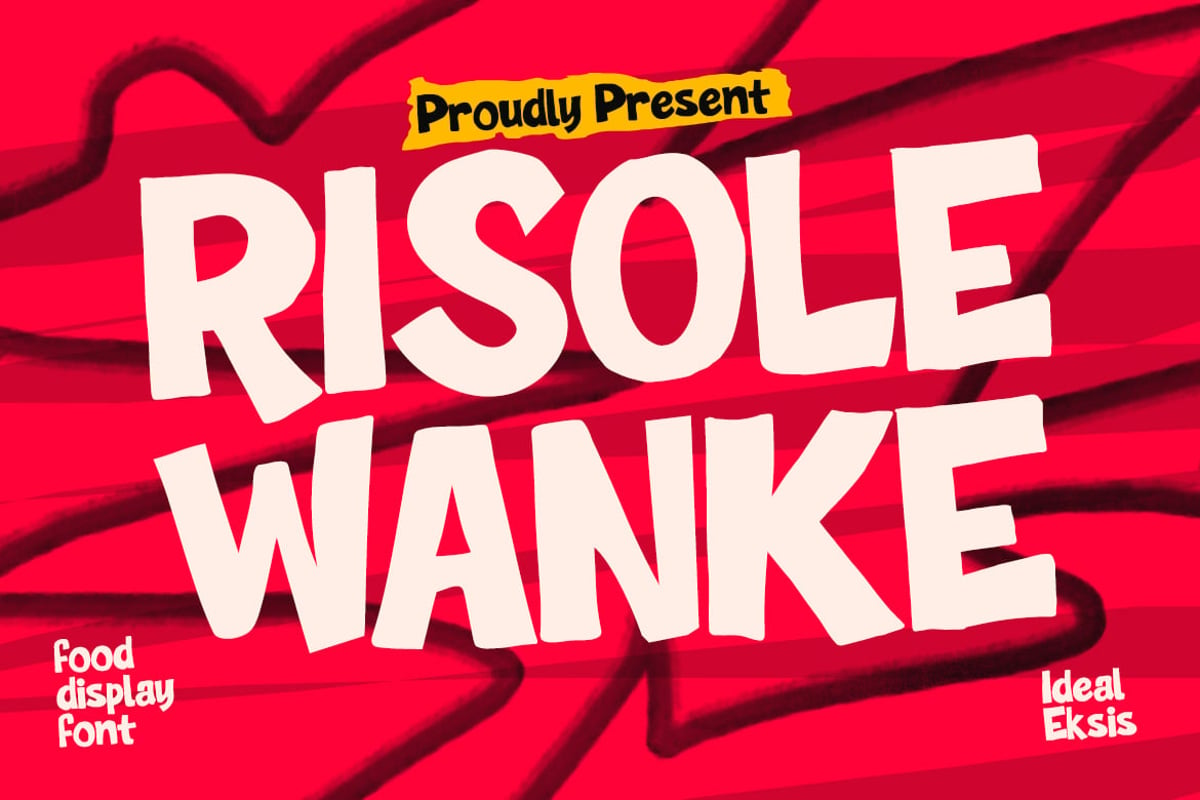
Risole Wanke - Food Font
Bold, chunky typography that brings energy and appetite appeal to your food branding projects.
This typeface showcases heavy letterforms with an organic, hand-drawn quality that radiates energy and friendliness. The thick, consistent strokes feature slightly irregular edges that create a tactile, artisanal feel perfect for food-related designs.
Its bold weight and absence of sharp serifs deliver high legibility and visual impact for large-scale applications. The playful bounce in the baseline and varying character widths create dynamic rhythm, making it an excellent choice for food packaging, restaurant branding, and vibrant social media marketing.
The design captures fun and approachability while maintaining a casual yet professional touch - ideal for designs that need to stand out in the competitive food industry.
Perfect applications:
- Bakery and café branding
- Food and beverage logos
- Restaurant menus and signage
- Coffee shop and donut shop designs
- Food packaging and labels
- Social media food promotions
- Kitchen-themed posters and prints
- Culinary blogs and recipe graphics